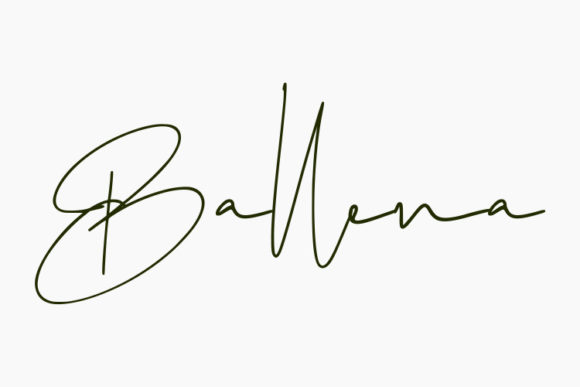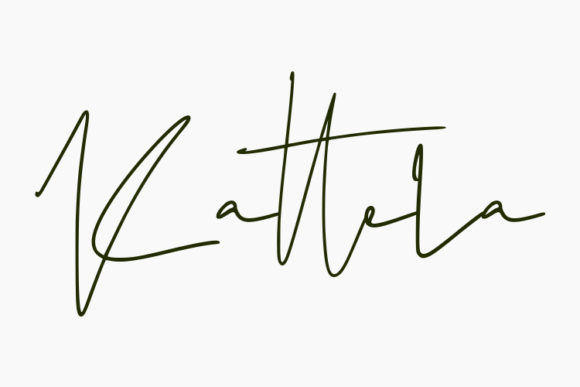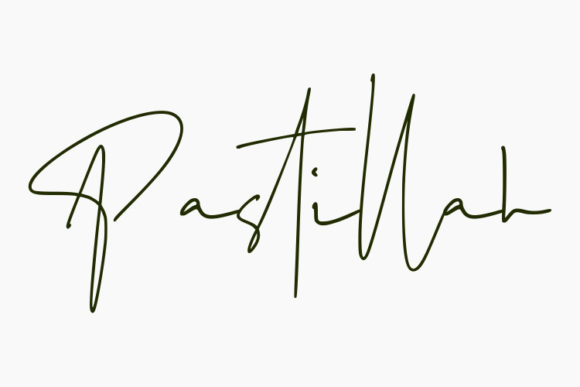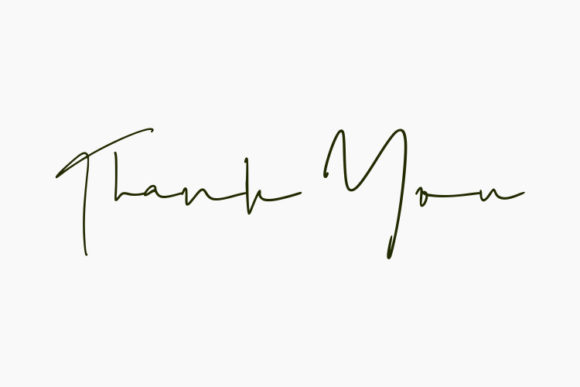
The Elegance of Author Font: A Designer’s New Best Friend
I’ll never forget the time I was working on a branding project for a luxury skincare client. I had the logo concept nailed, but something was off. The font I was using just didn’t feel sophisticated enough. I scoured the internet for the perfect handwritten font, and that’s when I stumbled upon Author Font. It was love at first sight! ✨
An Honest Review of Author Font
So, what makes Author Font so special? Let’s dive into the good stuff and a few quirks I’ve discovered.
- ✨ Elegant and Timeless Design: Every letter has a unique, beautiful touch that adds a level of sophistication to any design.
- ✅ Versatility: Perfect for logos, branding, quotes, and more.
- 💫 Handwritten Charm: Adds a personal, human touch to your designs.
While Author Font is incredibly versatile, there are a few things to keep in mind:
- ⚠️ Legibility at Small Sizes: Like many handwritten fonts, it can get a bit tricky to read at very small sizes. Make sure to test it out at different scales.
- 🤔 Pairing with Other Fonts: Due to its distinctive style, it can be a bit challenging to pair with other fonts. Stick to simple, clean fonts for the best results.
The Backstory of Author Font
While the origins of Author Font might not be well-documented, it’s clear that the designer aimed to create a font that feels both personal and prestigious. The unique touches in each letter suggest a meticulous design process, ensuring the font stands out in any project.
Q: Is Author Font suitable for body text?
A: While Author Font is stunning, it’s primarily designed for headings and short texts. For body text, consider a more readable font.